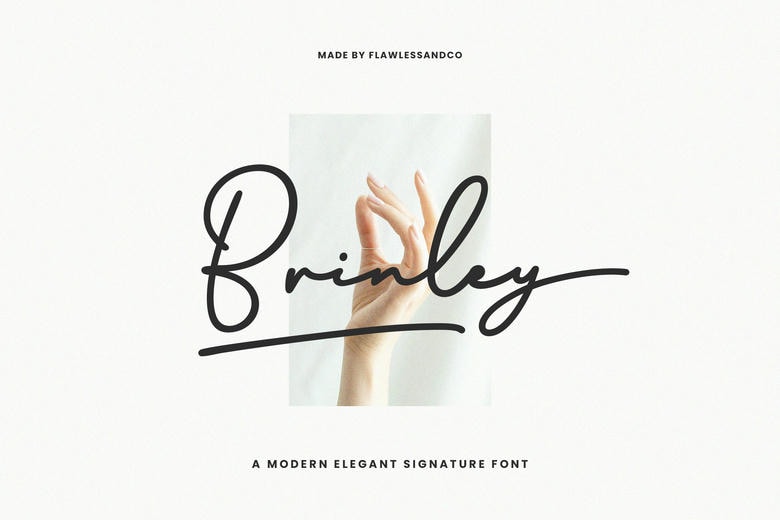
Brinley Font
Brinley is a beautiful and attractive modern handwritten script typeface. It has natural flowing lines that are so personal and attractive. Brinley best fits most applications, such as branding, wedding correspondence, packaging design, posters, etc.
Brinley Handwritten Script Font